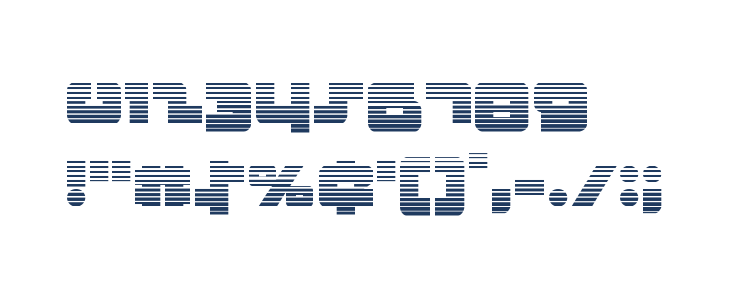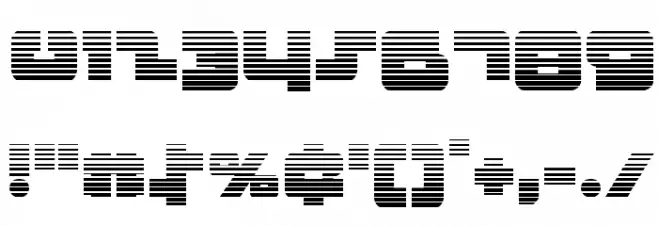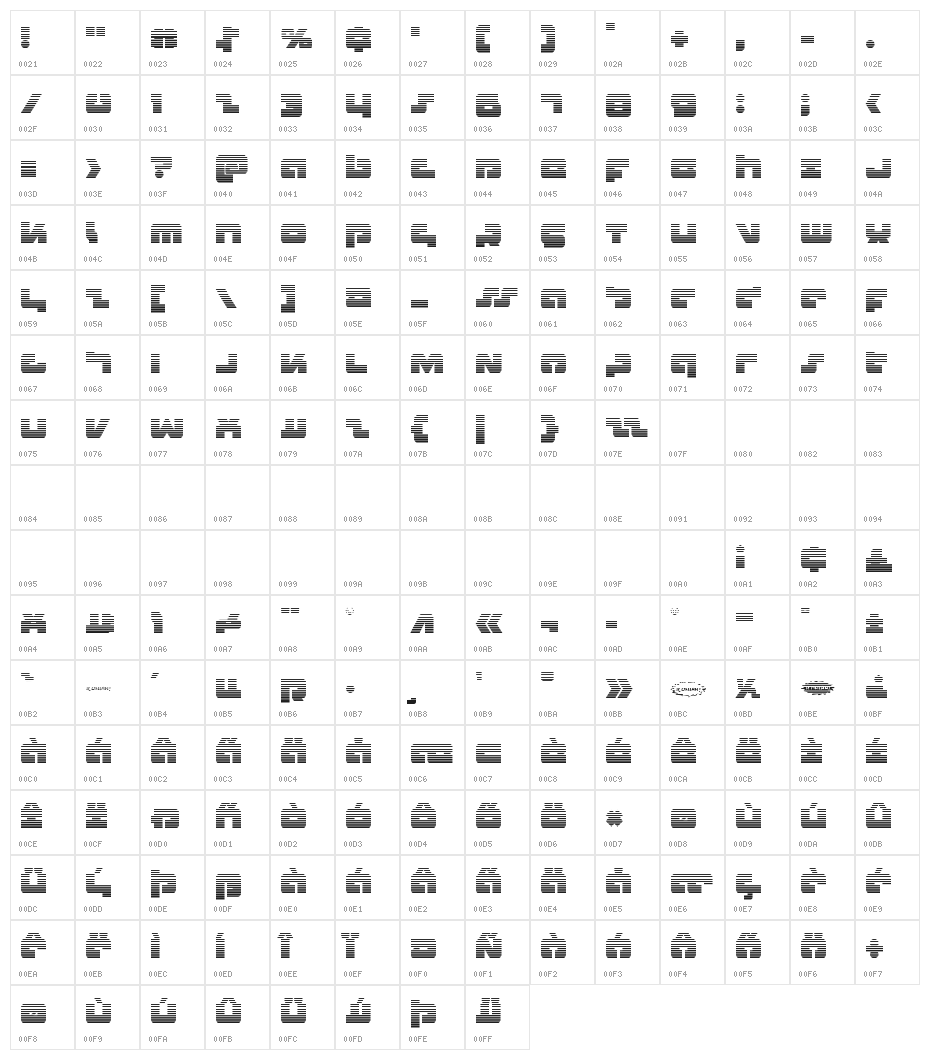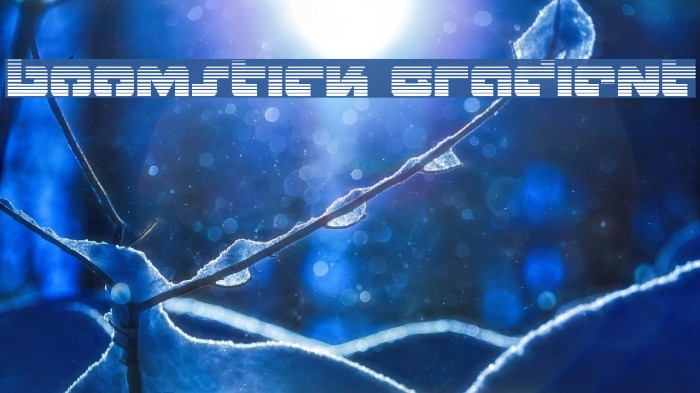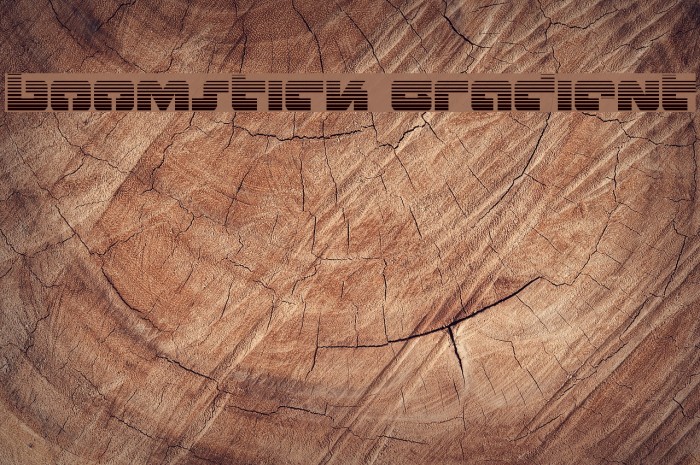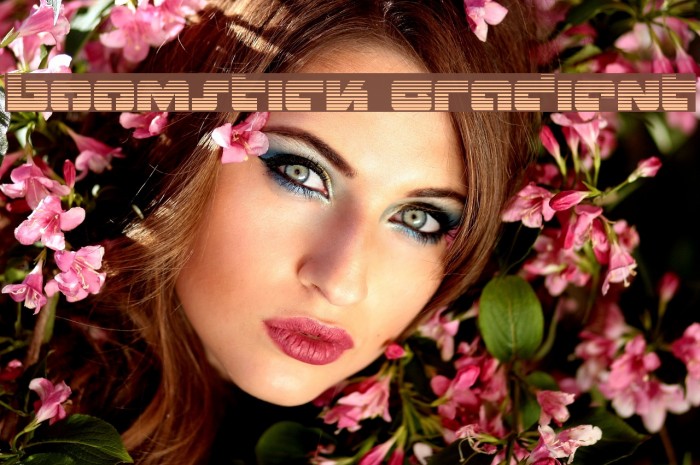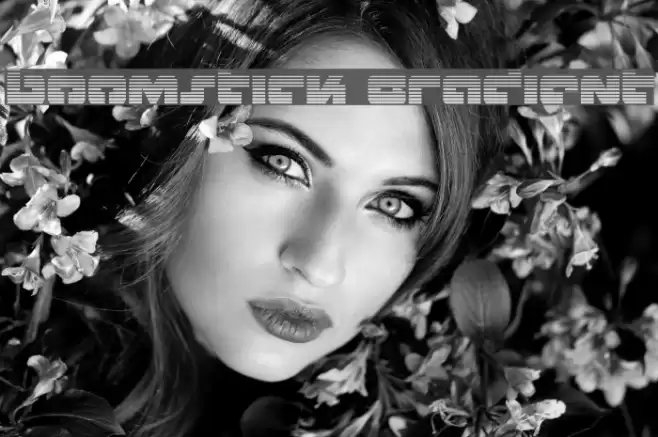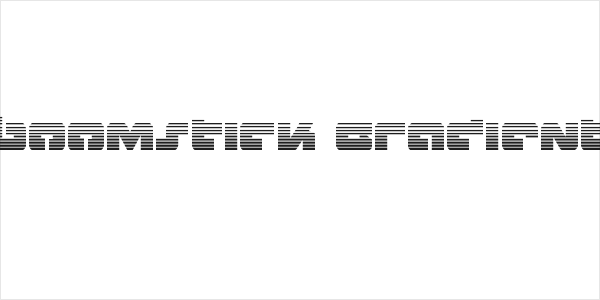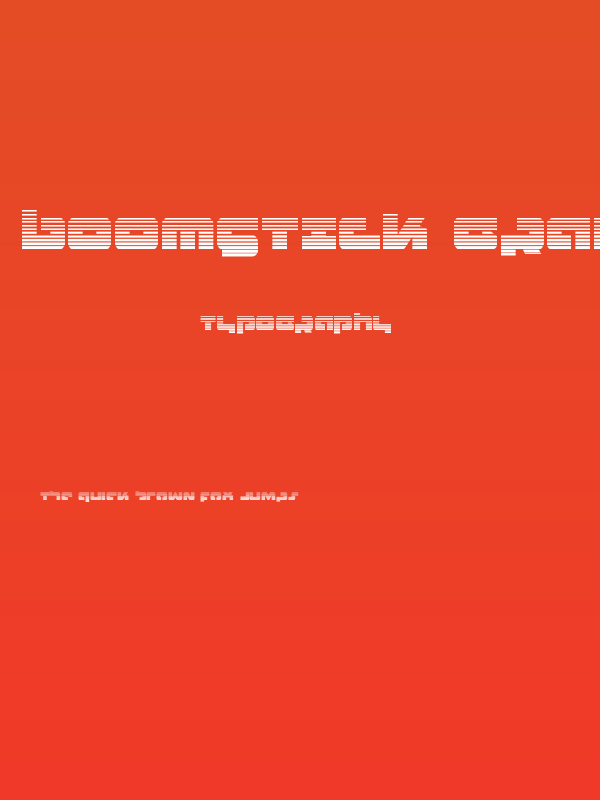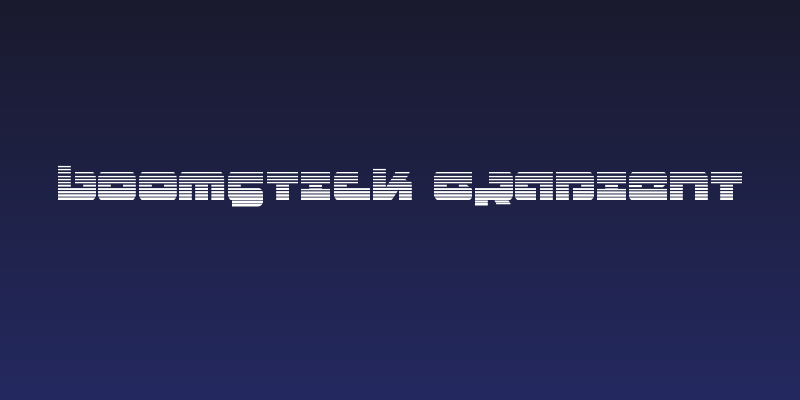
Boomstick Gradient Font
Boomstick Gradient Description
This font features a bold, futuristic design with a distinctive striped pattern running horizontally across each character. The geometric shapes and sharp angles give it a modern and edgy appearance, making it stand out in any design. The uppercase and lowercase letters maintain a consistent style, with the stripes creating a sense of movement and energy. Numbers and special characters are also included, following the same design principles. The overall look is both unique and eye-catching, perfect for projects that require a strong visual impact.
Proposed ProjectsIdeal for sci-fi themed designs, video game titles, tech company logos, and modern advertising campaigns.
AuthorFonts by Iconian Fonts